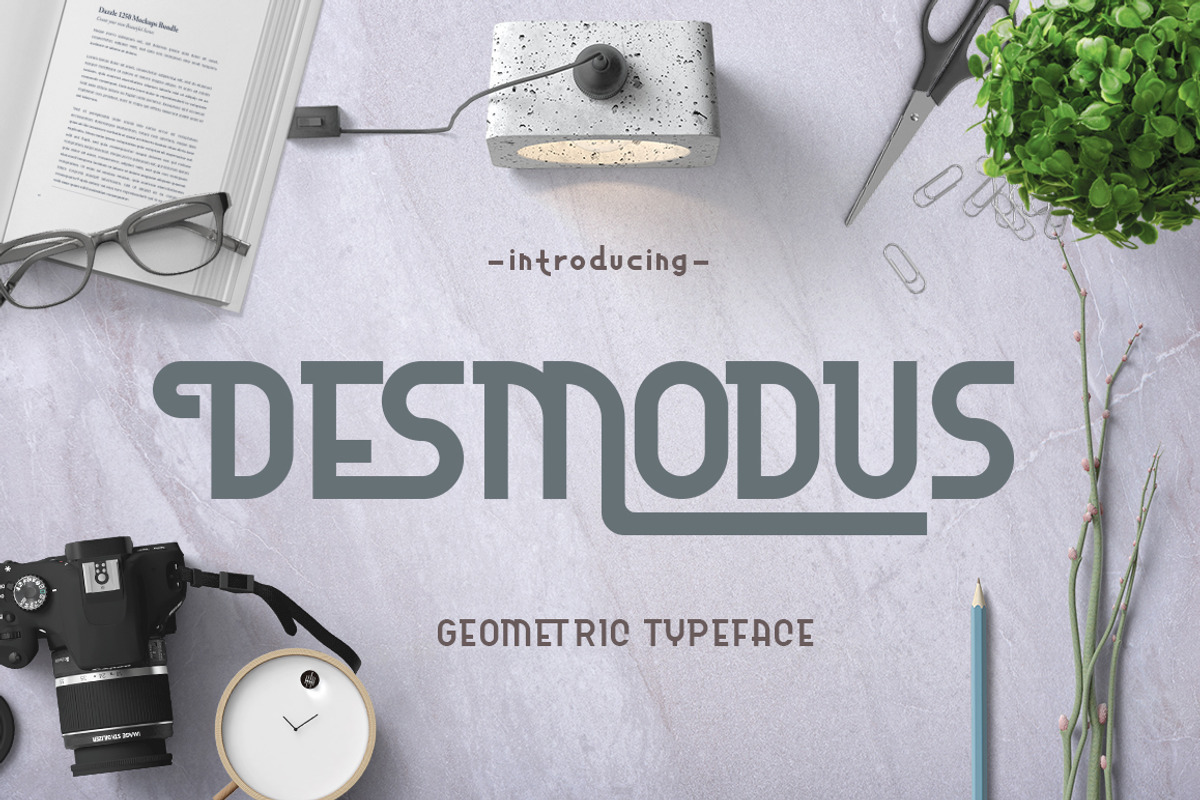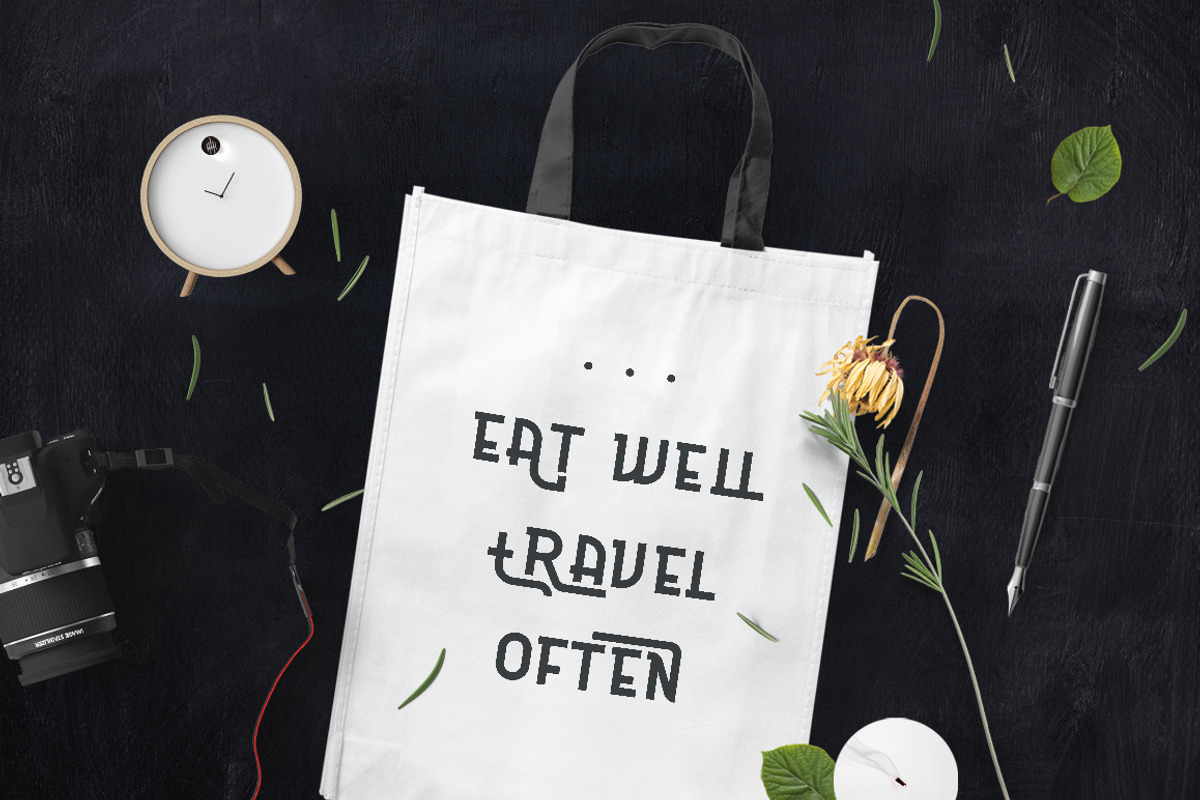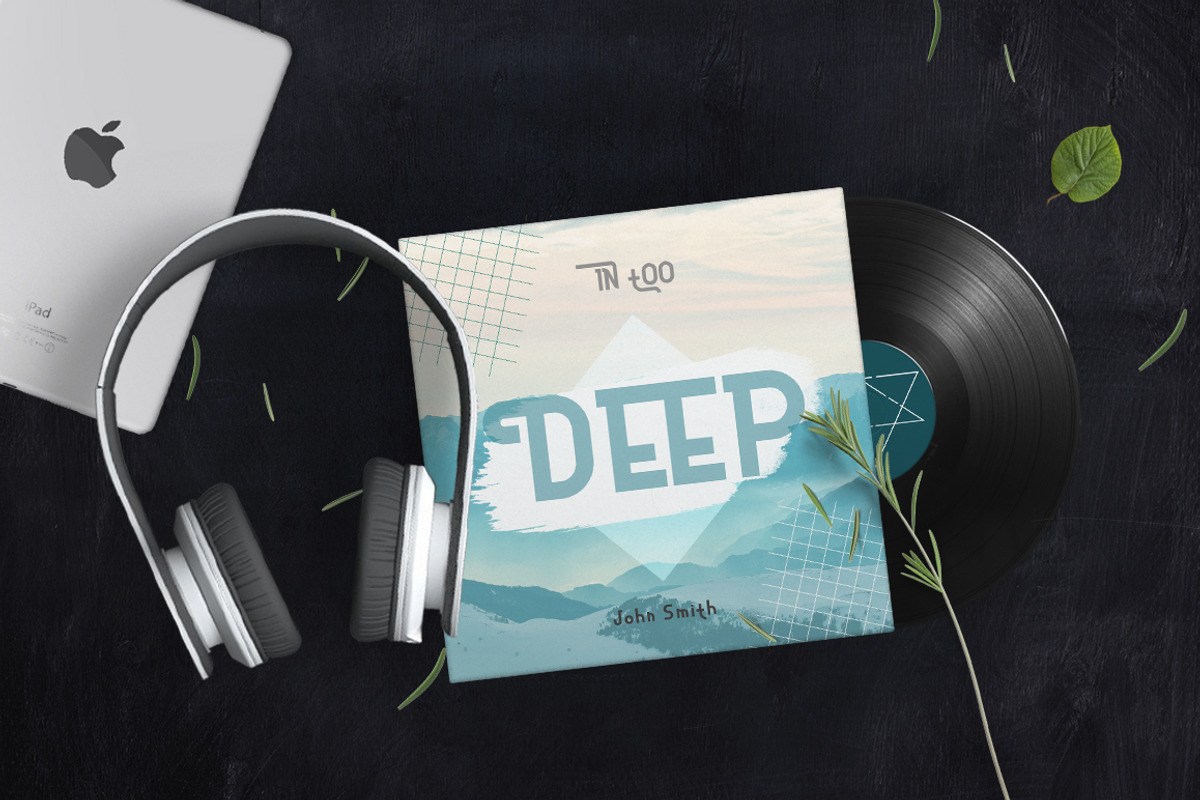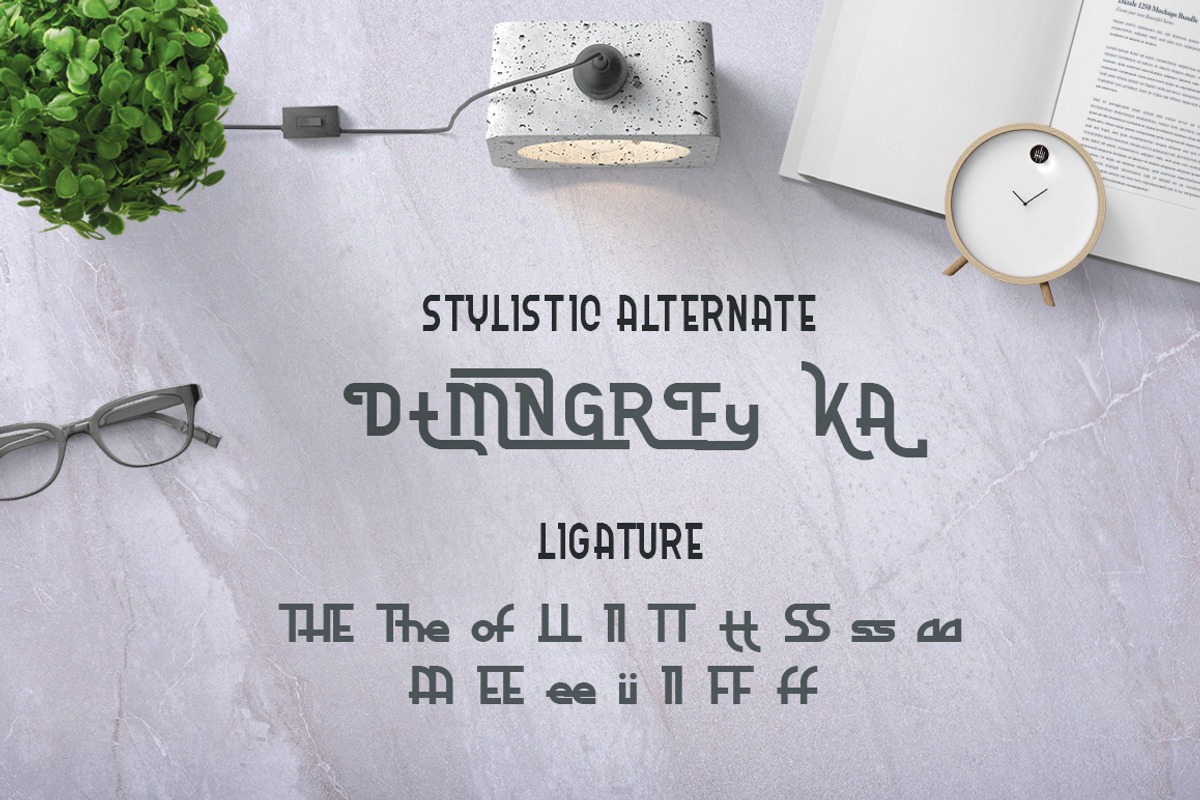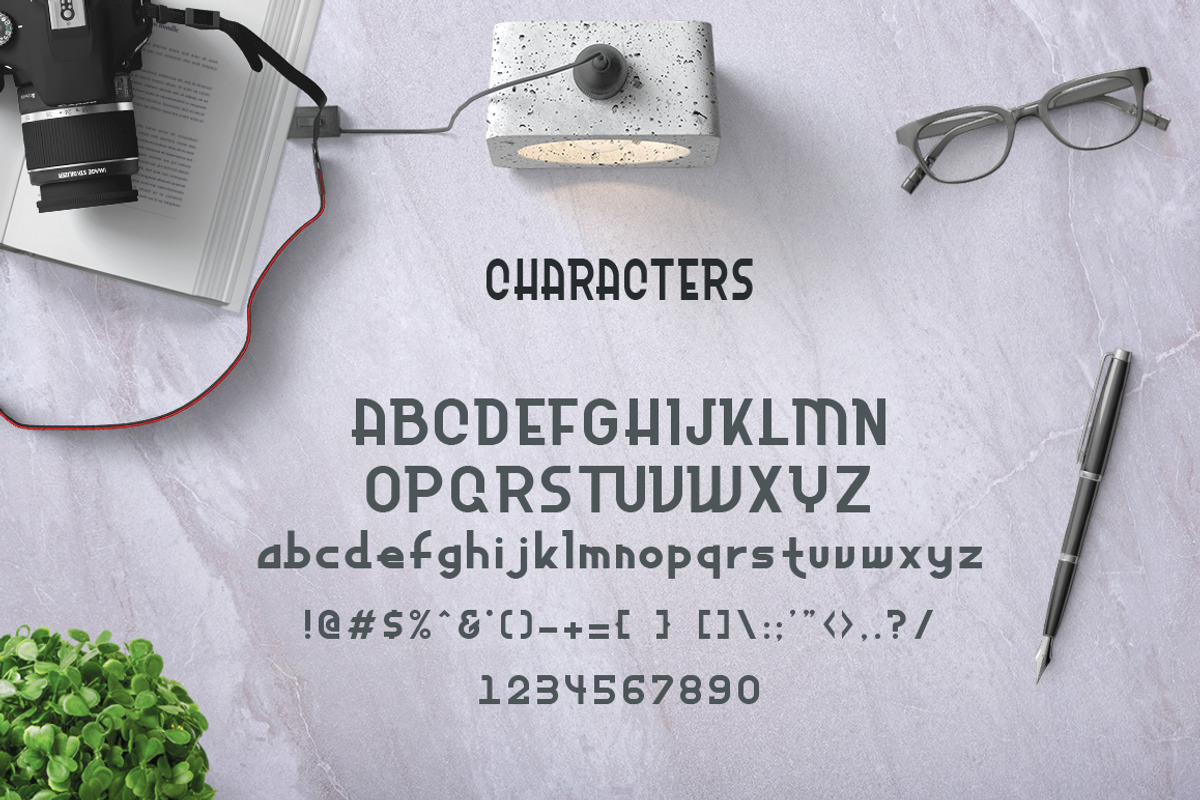
Desmodus - Geometric Typeface
Desmodus is a decorative sans serif typeface inspired by cityscape and geometric shape. Desmodus is suitable for any display design such as headline, logo, logo type, poster, apparel and others.
- Features include Uppercase, Lowercase, Numerals, Punctuations, Ligatures, Stylistic Alternates.
Desmodus - Geometric Typeface by TGIF.STD fits naturally into Branding, posters, packaging, typography.